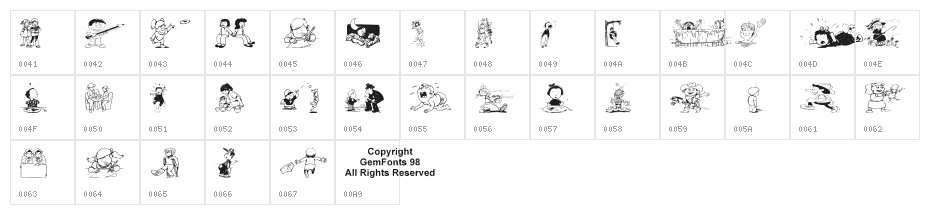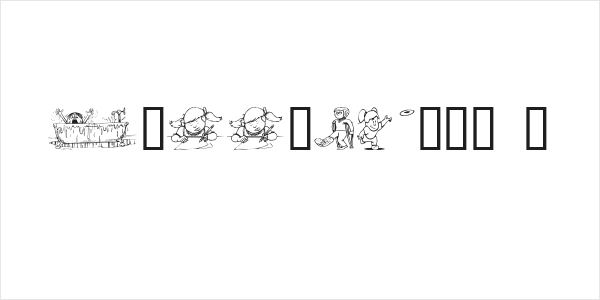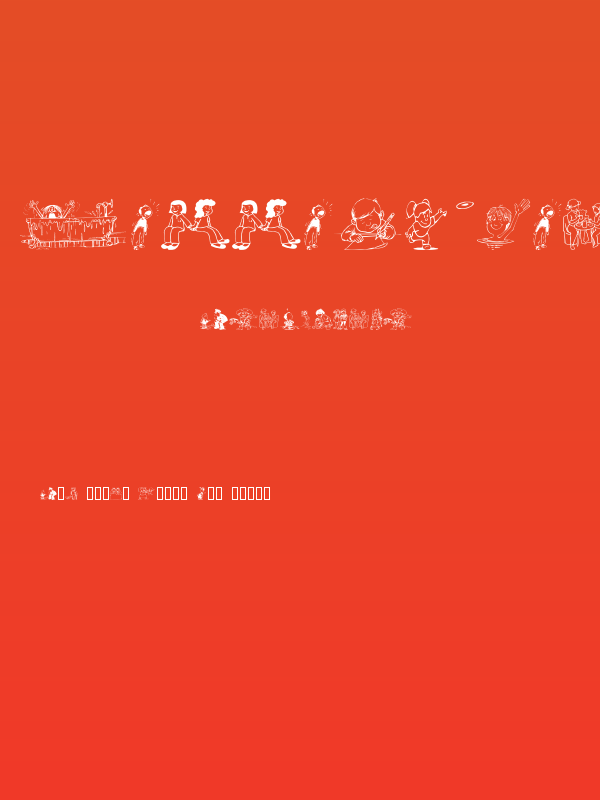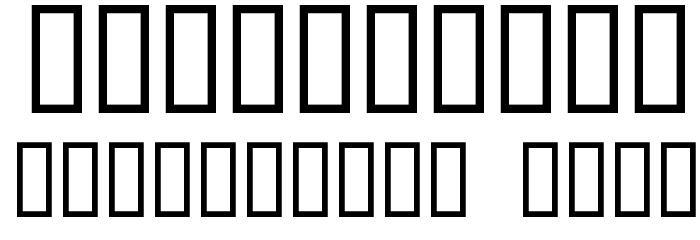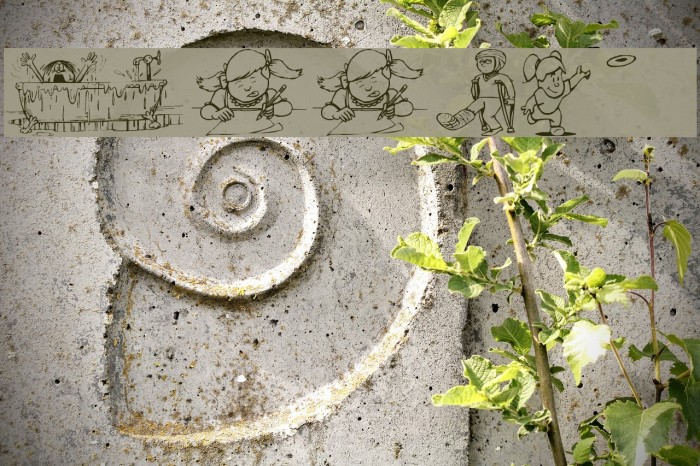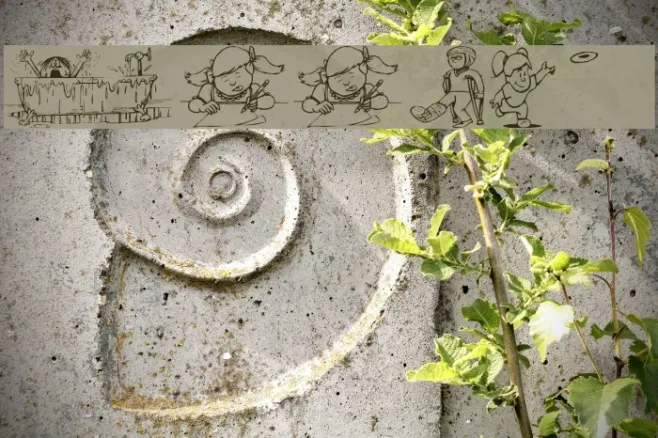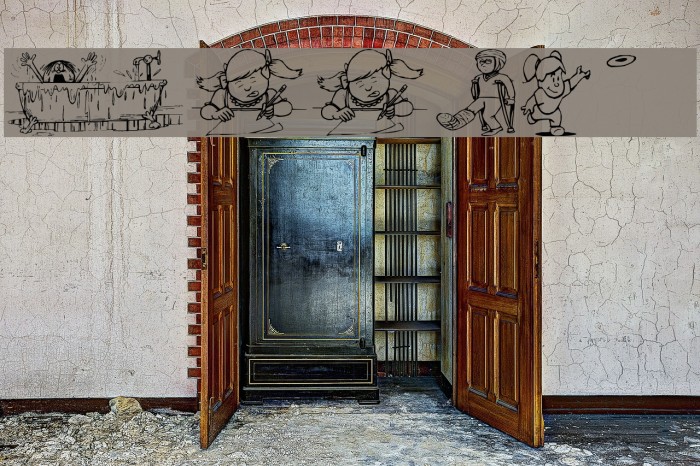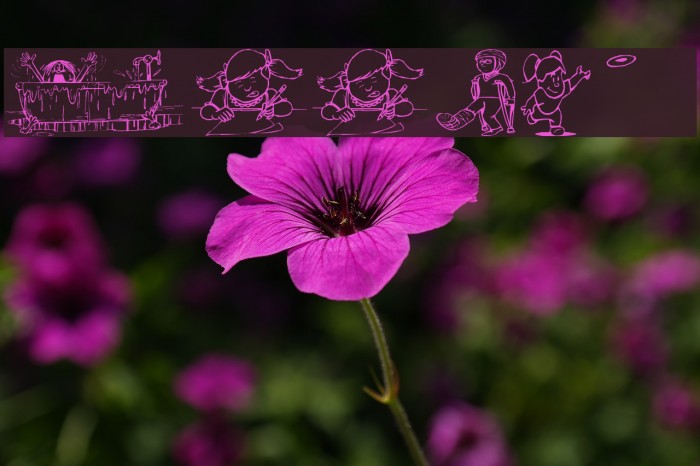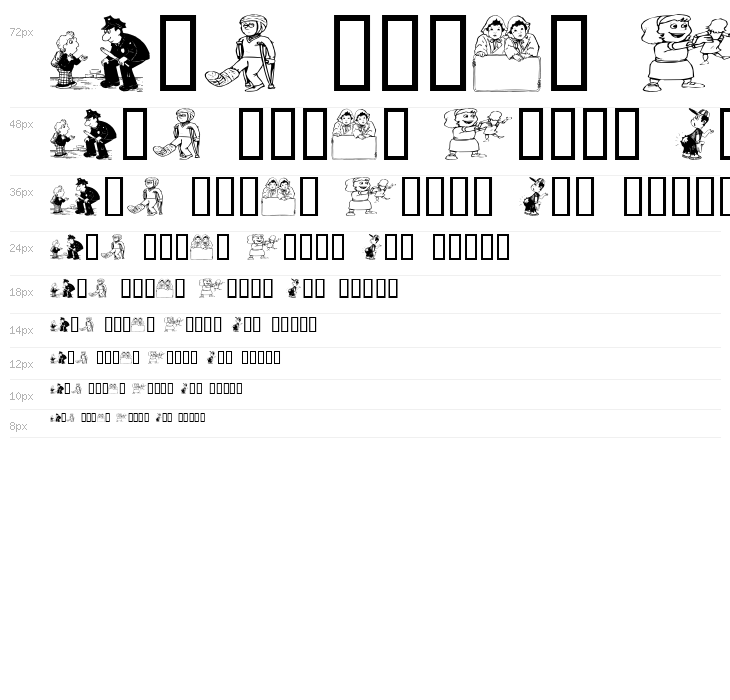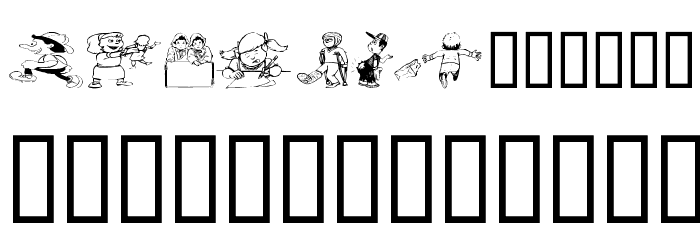
KiddieClip 2 Font
KiddieClip 2 Description
| Overall Style | Playful, Whimsical, Decorative |
| Use Case | Illustrative accents, thematic dividers, decorative elements |
| Proposed Projects | Children’s books, party invitations, educational materials, scrapbooking, playful branding. |